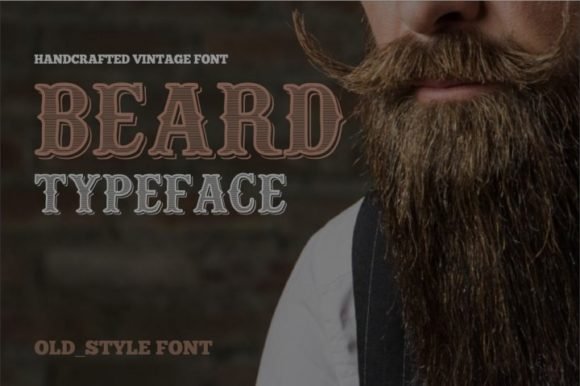
The Timeless Charm of Beard Font: Elevating Your Designs
Have you ever stared at a blank canvas, waiting for inspiration to strike? The blank page, the empty screen – it’s a creative’s worst nightmare. But what if I told you that the key to unlocking your design potential lies in a single font? Enter the Beard Font, a vintage serif typeface that’s been making waves in the design world.
This bold and striking font is more than just a pretty face – it’s a powerful tool for making your designs stand out. With its unique blend of elegance and ruggedness, Beard Font is the perfect choice for designers looking to add some character to their work. Whether you’re creating a brand identity, a website, or a marketing campaign, this font is sure to bring a touch of sophistication and whimsy to your designs.
Beard Font Key Features
- Font Family: Beard Font is a unique display font designed to resemble a beard, with a wide range of characters and ligatures.
- Unique Characteristics: The font’s unique design allows for a wide range of creative possibilities, including custom ligatures and alternates, making it perfect for designers and artists.
Beard Font Review
As a designer, I was initially drawn to the unique and rugged aesthetic of the Beard Font. ✨ It’s clear that the creator has put a lot of thought into crafting a font that captures the essence of a well-groomed beard.
- Unique and quirky design: The Beard Font stands out from more traditional fonts and can add a touch of personality to any project.
- High-quality glyphs: The font includes a wide range of characters, including punctuation and numbers, that are well-designed and consistent.
- Good legibility: Despite its unconventional design, the Beard Font is surprisingly easy to read, especially at larger font sizes.
- Not suitable for body text: The Beard Font is best used for headlines, titles, or other decorative text, as it can be difficult to read at smaller font sizes.
- Limited language support: The font may not include all the characters necessary for certain languages, which could be a limitation for designers working on global projects.
Overall, I think the Beard Font is a great choice for designers looking to add a touch of personality to their projects. While it may not be suitable for every project, it’s a unique and well-designed font that can add a lot of character to the right design.